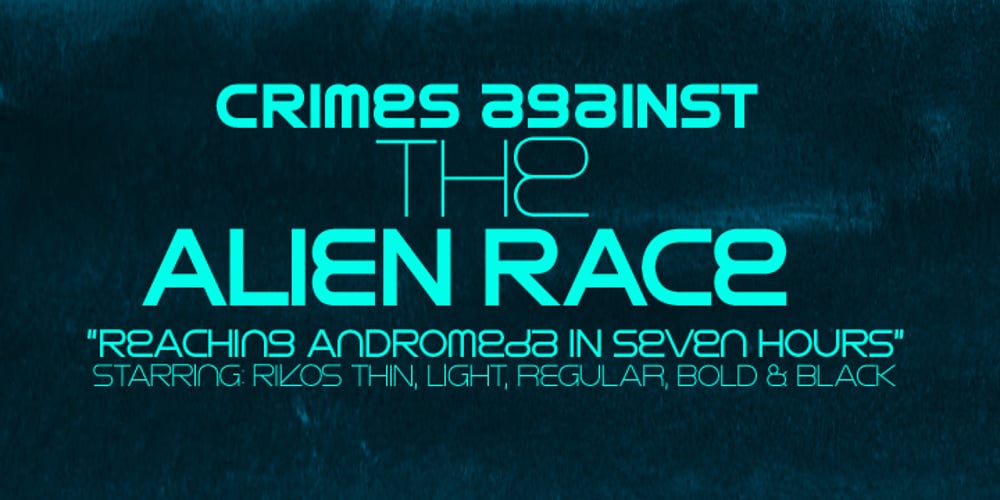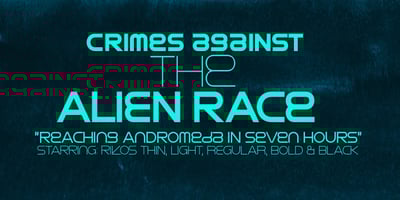
Rikos Font Family was designed by Emil Karl Bertell and published by Fenotype. Rikos contains 5 styles and family package options. Rikos is an Alien-influenced unicase font family from the future. Use all the five members of the family for maximum impact!